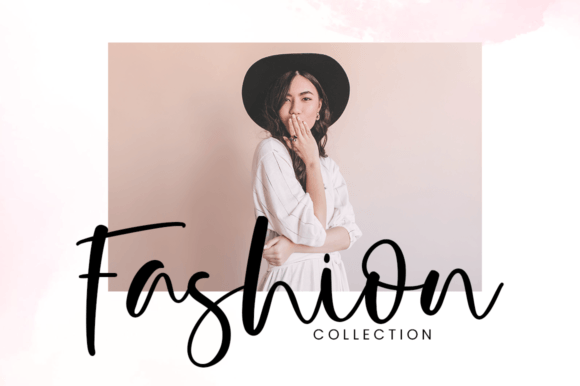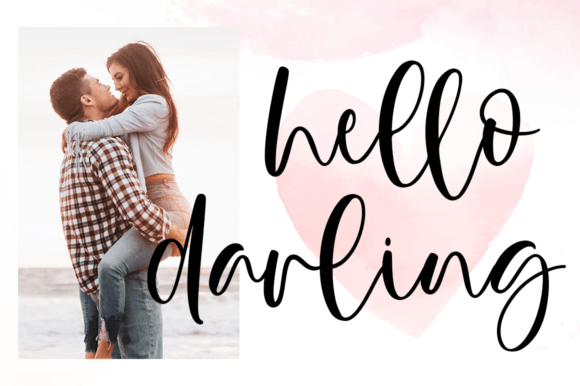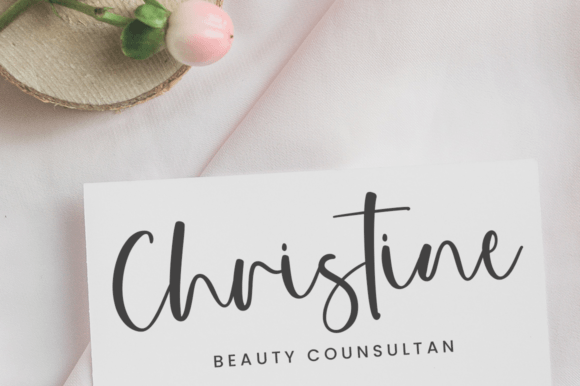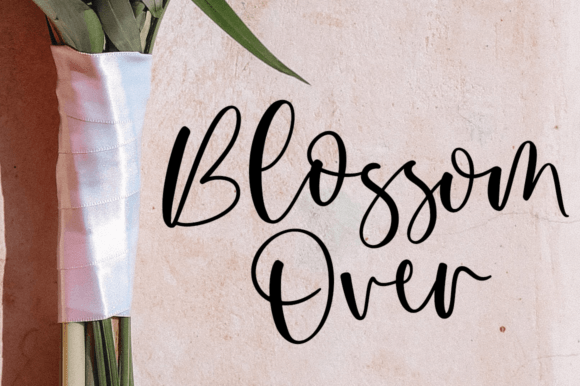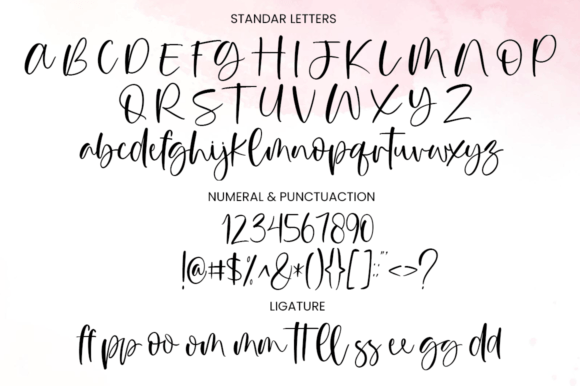
Discovering the Perfect Font: A Designer’s Dream
Have you ever stared at a blank canvas, feeling the weight of creativity on your shoulders? The cursor blinks, taunting you with its emptiness, as you desperately search for the perfect font to bring your design to life. For those moments of uncertainty, we’ve got just the thing: Another Love Font.
Crafted with elegance and class in mind, Another Love Font is the perfect addition to any design project. Whether you’re working on a wedding invitation, a luxury brand’s marketing materials, or a heartfelt love letter, this font is sure to leave a lasting impression. Its delicate script style exudes refinement and sophistication, making it a valuable asset for any designer looking to elevate their work.
Another Love Font Key Features
- Font Family: Another Love Font is a script font, ideal for creating elegant and romantic designs.
- Size: The font family includes various weights and styles, ranging from 200 to 900, allowing for flexibility in design applications.
- Resolution: Designed for high-resolution displays, suitable for use in digital designs such as website headers, social media graphics, and mobile app interfaces.
- Unique Characteristics: Features a flowing, handwritten style with subtle flourishes, making it perfect for creating a sense of warmth and personality in designs.
Review of Another Love Font
Overall, I was excited to dive into “Another Love Font” and see what it had to offer. ✨ The font’s unique blend of script and serif elements caught my eye, and I was eager to see how it would perform in various design scenarios.
One of the things that works well in this font is its legibility. ✨ The letterforms are clear and well-defined, making it easy to read, even at smaller font sizes. The font also has a nice flow to it, making it suitable for body copy and other text-heavy applications.
However, there are some limitations to consider. ⚠️ The font’s aesthetic, while unique, may not be to everyone’s taste. Some users may find it too ornate or overly sentimental. Additionally, the font’s design may not be suitable for use in situations where a more modern or minimalist look is desired.
Here are some specific pros and cons to consider:
- ✨ Unique blend of script and serif elements
- ✨ Good legibility and flow
- ⚠️ May be too ornate or sentimental for some users
- ⚠️ Not suitable for modern or minimalist designs
Overall, I would say that “Another Love Font” is a solid choice for designers looking for a unique, elegant font. While it may not be perfect for every project, it has a lot to offer and is definitely worth considering.
For best results, use Another Love Font in combination with bold or italic text to add emphasis.
Another Love Font is ideal for creating romantic, vintage, or distressed text effects.
Use it for wedding invitations, valentine’s day cards, or any other design project that requires a unique, emotive font.